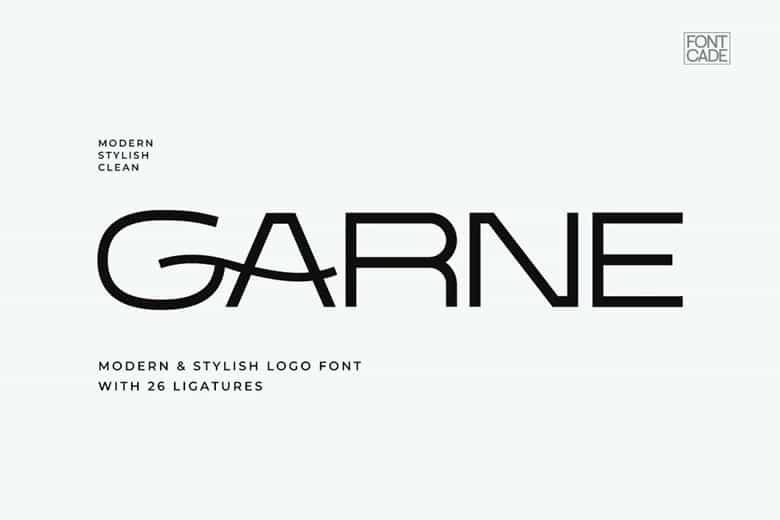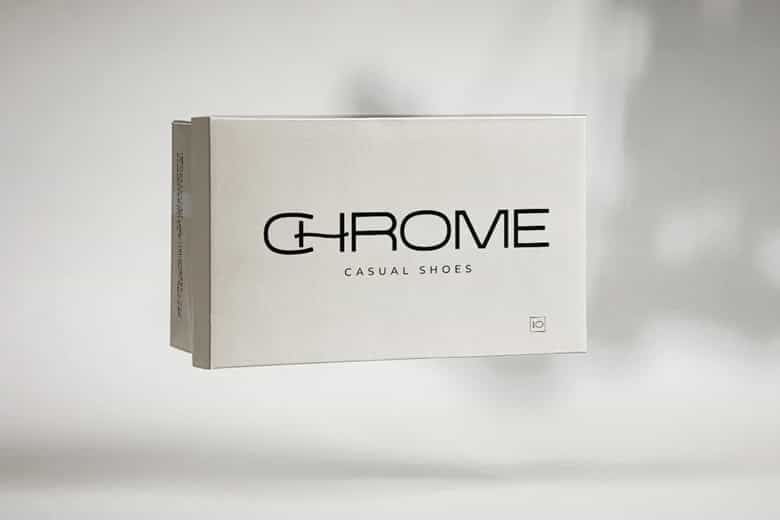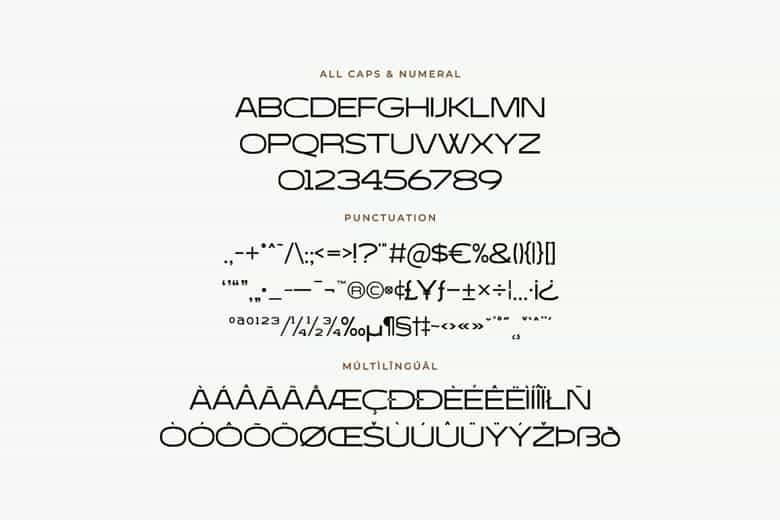
Garne is an elegant and practical logo typeface with a slight taste of the modern. With 26 beautifully designed ligatures, it introduces a touch of flair and elegance due to stylish letterform pairing. Perfect to use in branding, logos, and other design projects, Garne will provide sophistication and modern touch to any visual idea.